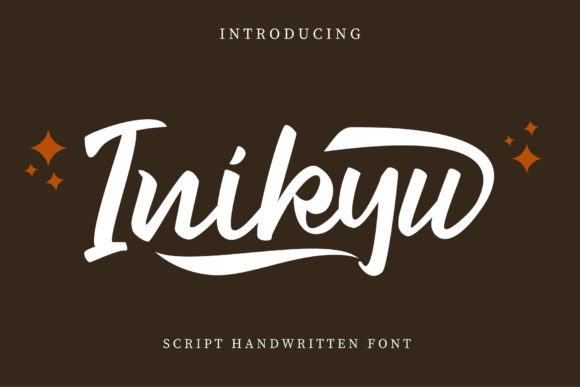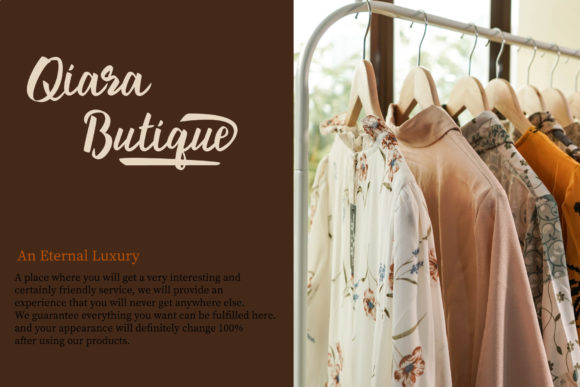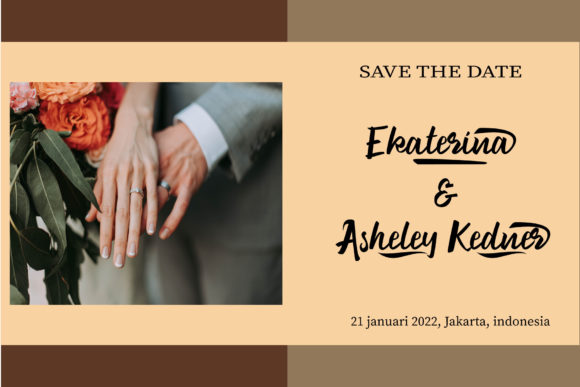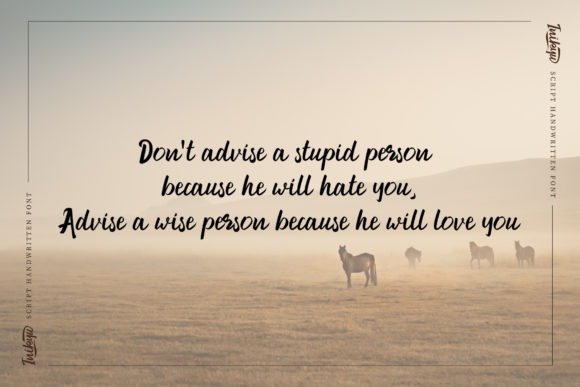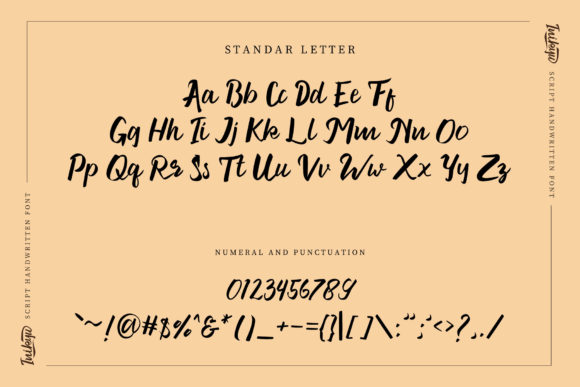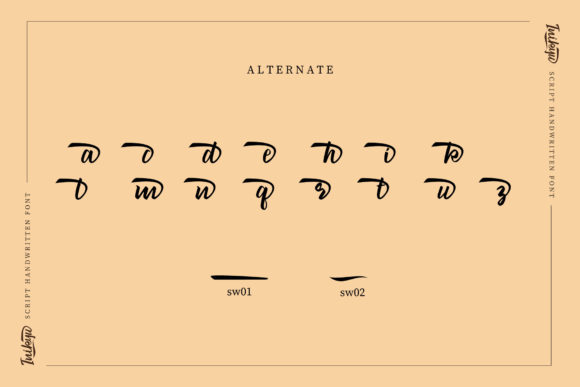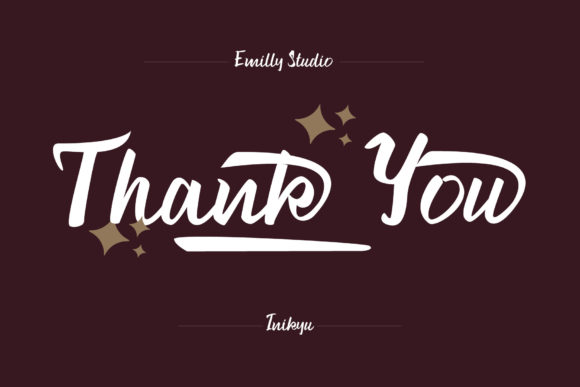
About Inikyu Font
Inikyu is a delicate paint brushed and chic handwritten font. it is PUA encoded which means you can access all of the glyphs and swashes with ease!